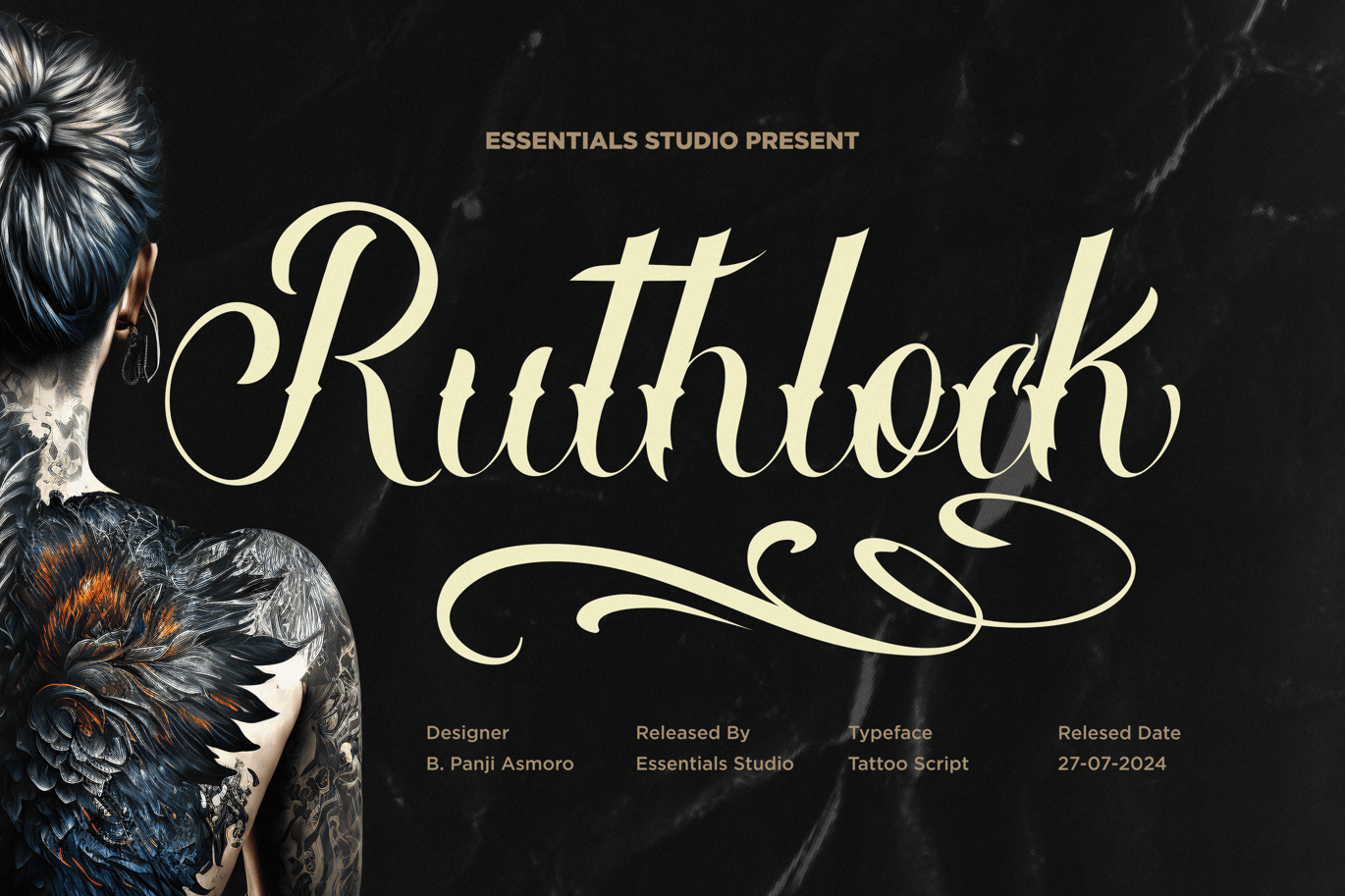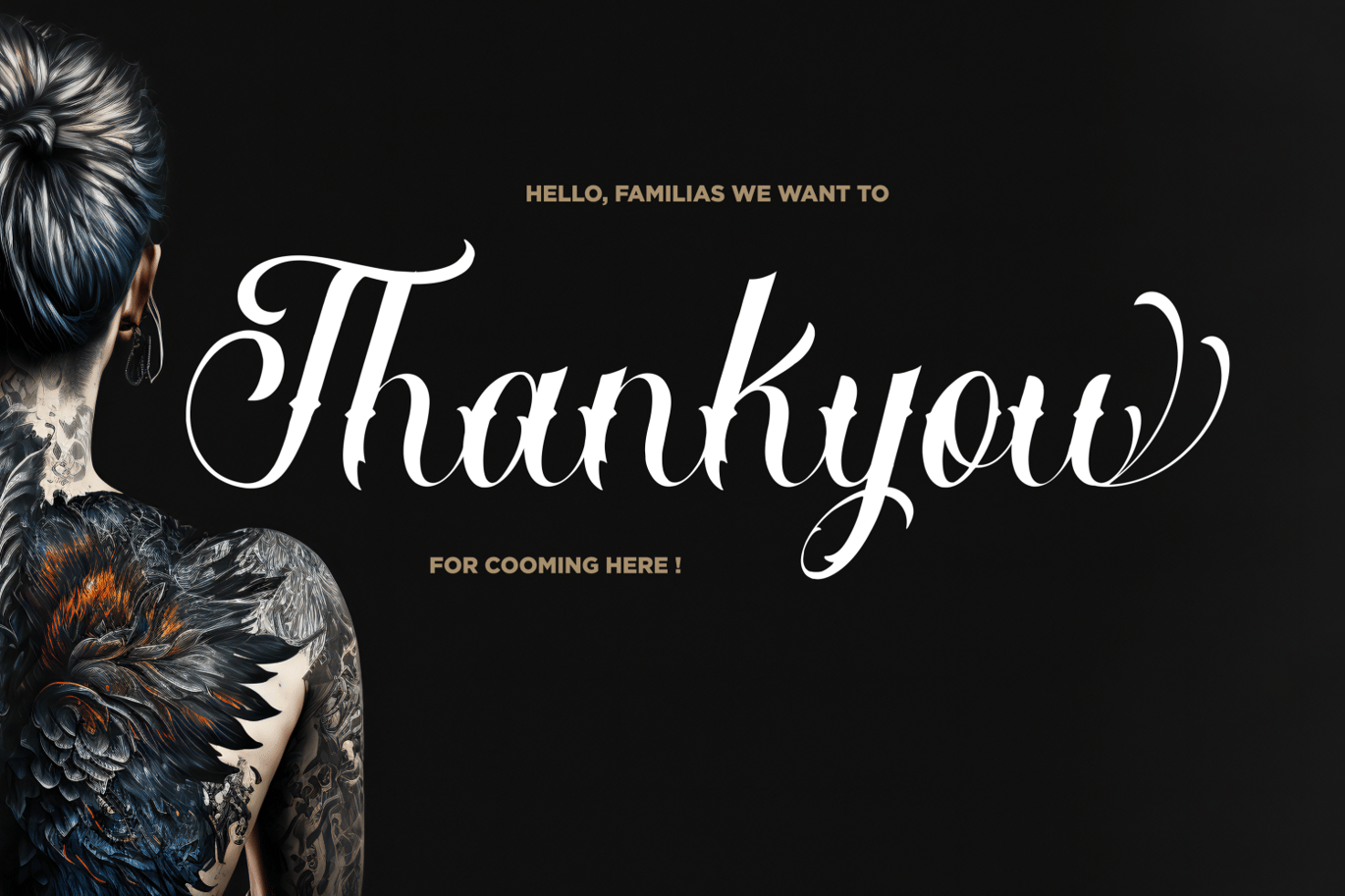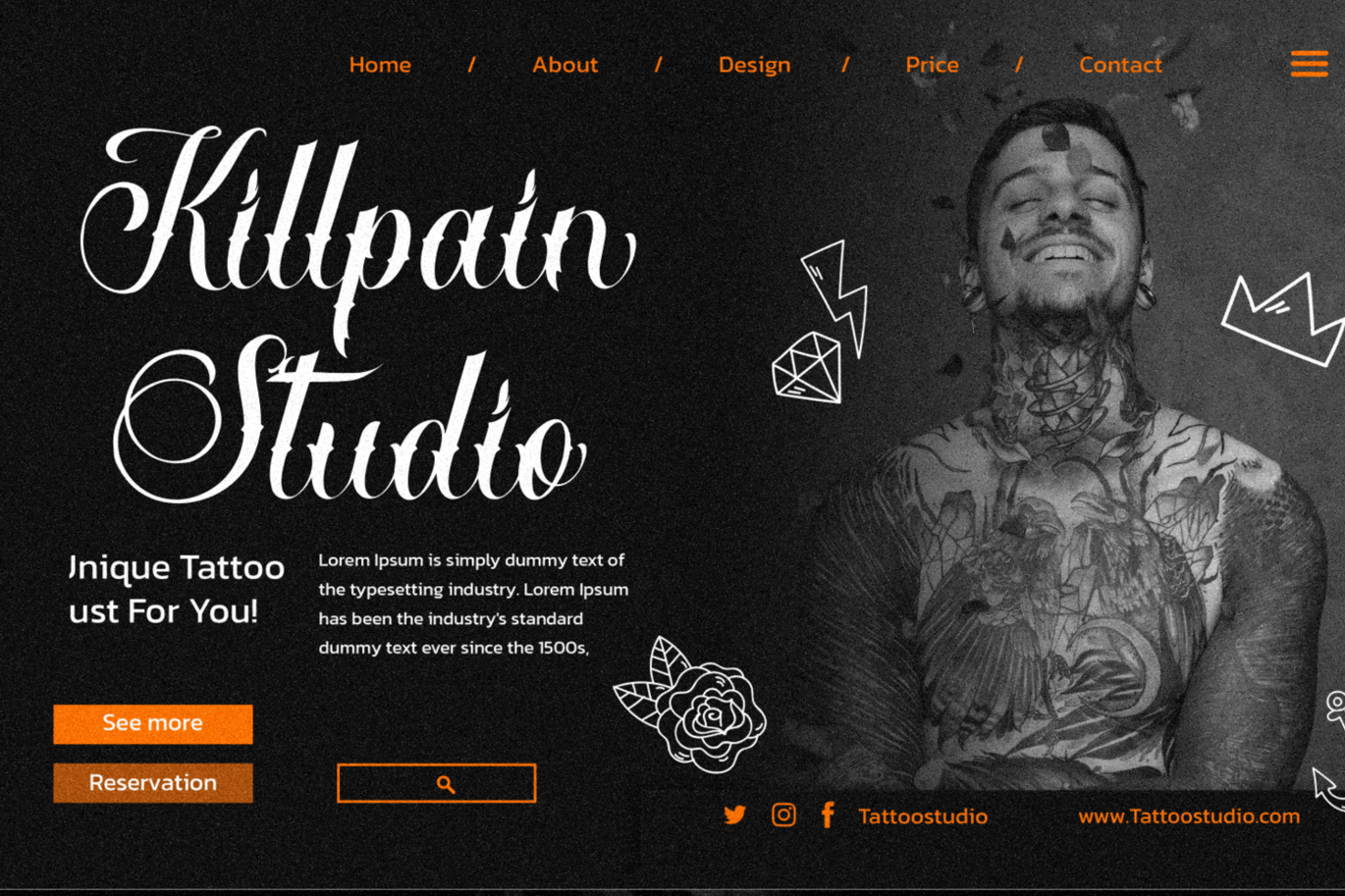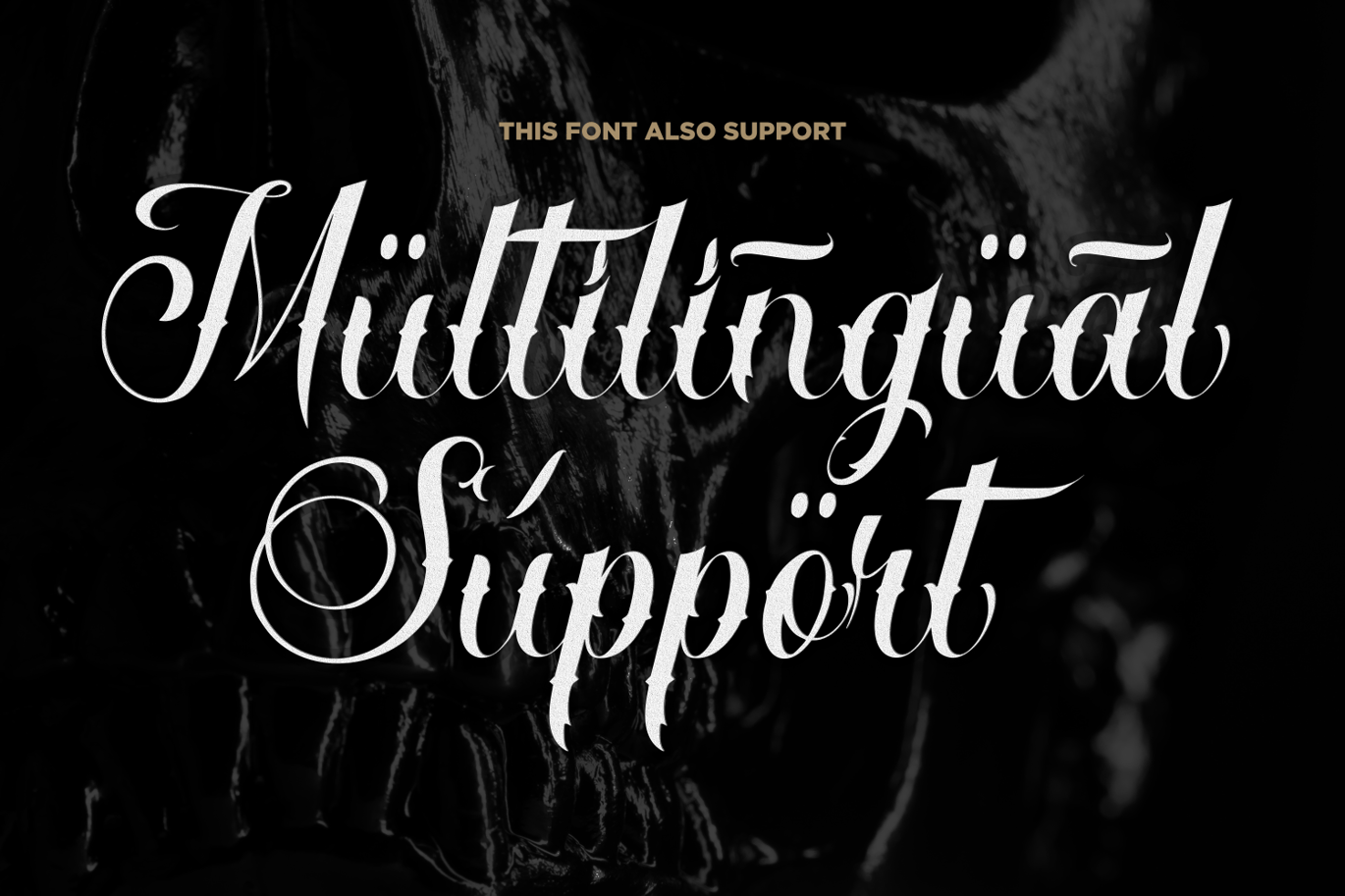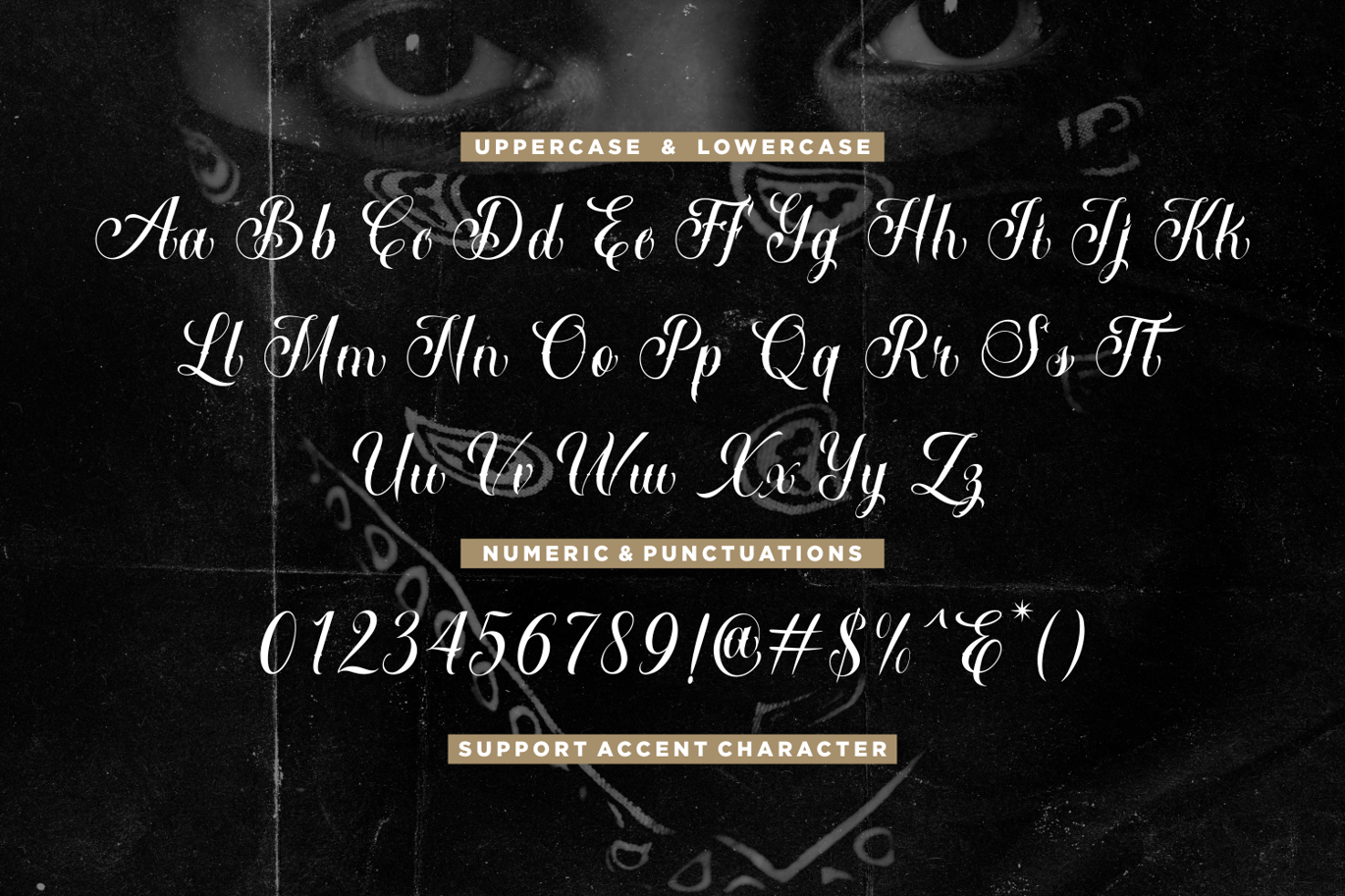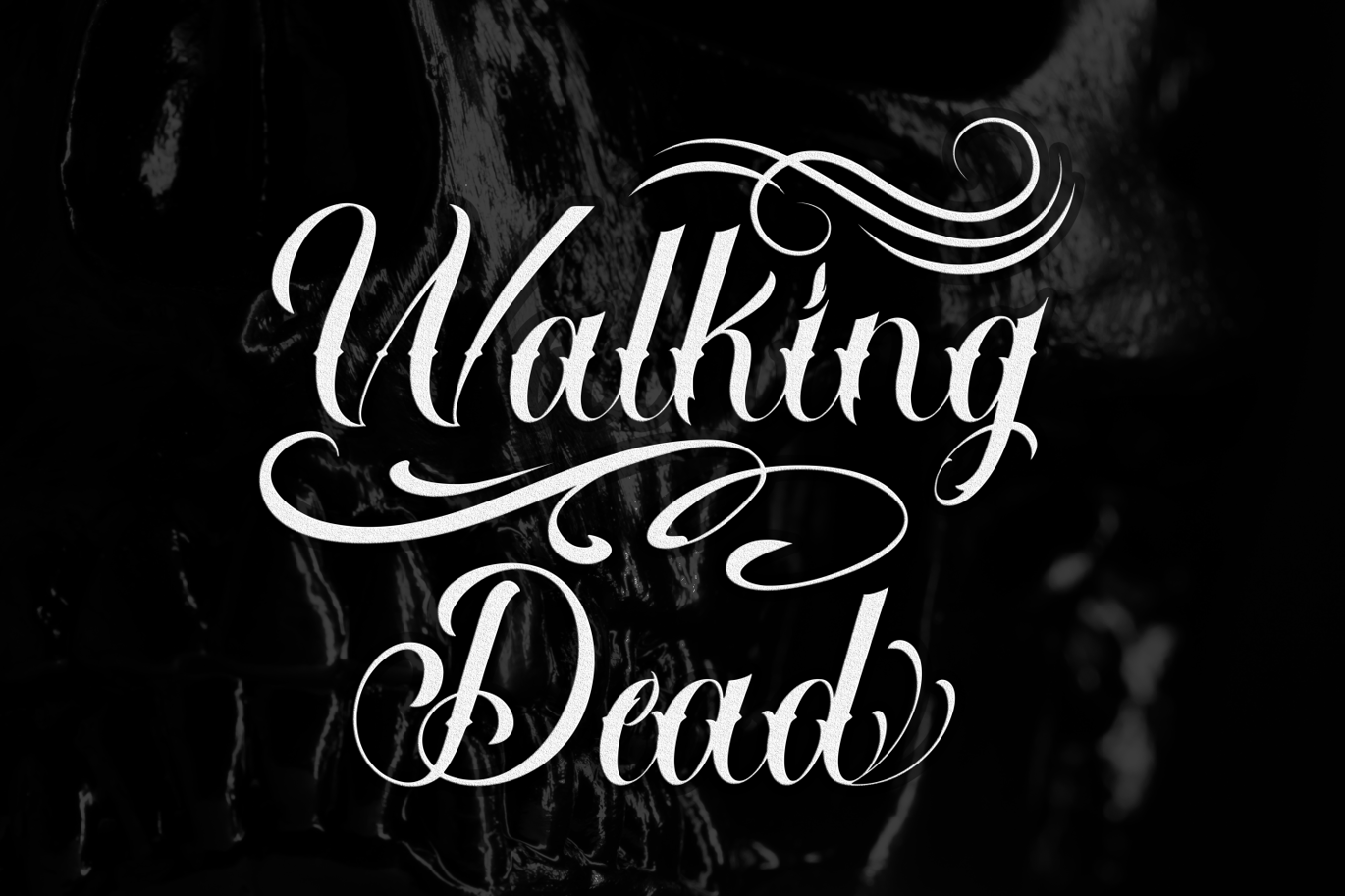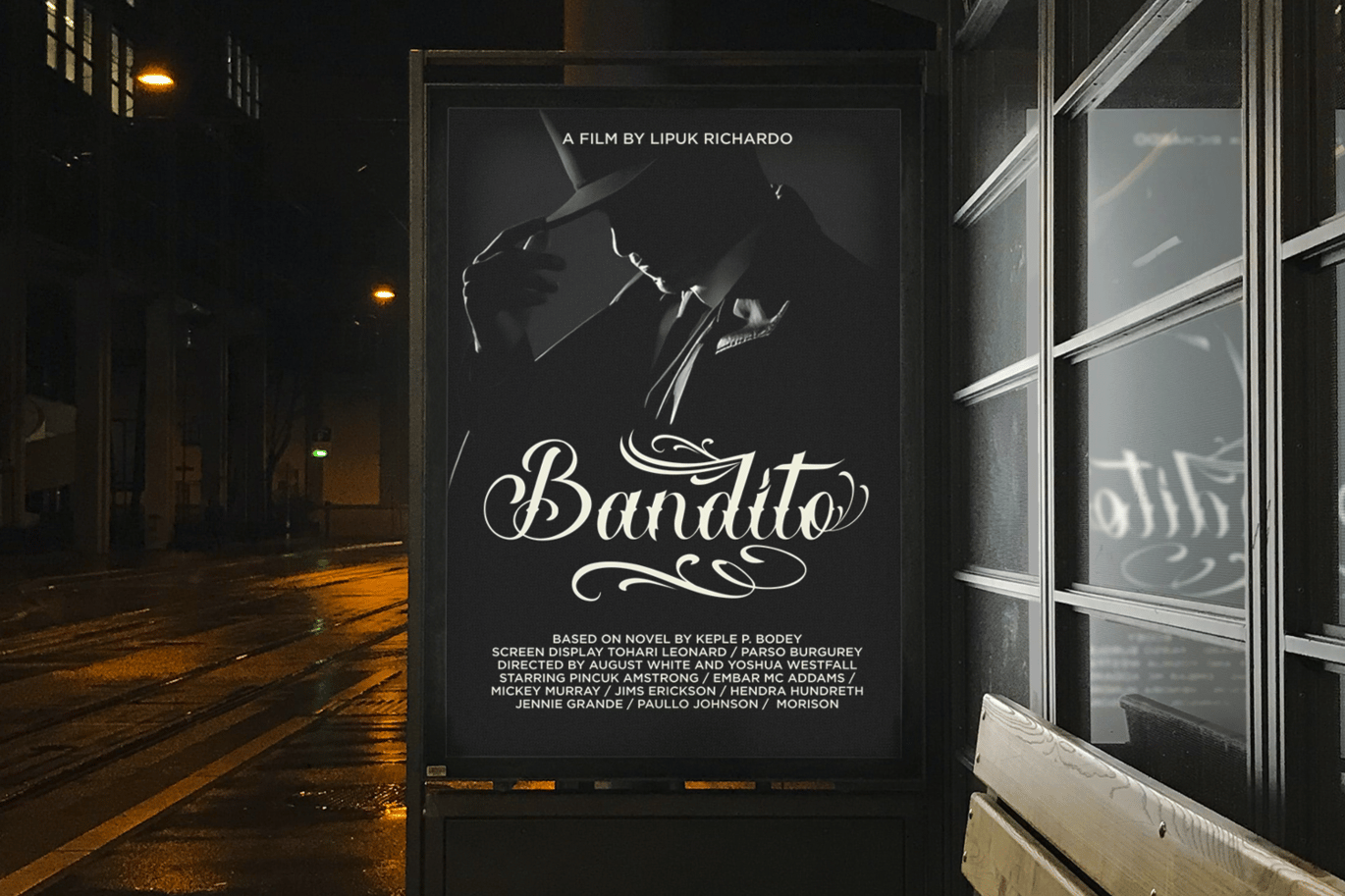
ES Ruthlock – Tattoo Script Font
Introducing by Essentials Studio
Proudly Present, Ruthlock. a thoughtfully crafted modern script tattoo font by Essentials Studio. Exhibiting a bold yet beautiful aesthetic, it seamlessly marries elegance with impact. This font is exquisitely suited for branding initiatives, or as a standout choice for tattoo studios desiring a unique and striking typographical presence. Experience the harmonious blend of daring boldness and timeless beauty with Ruthlock, Enjoy your designs touch with our masterpiece.